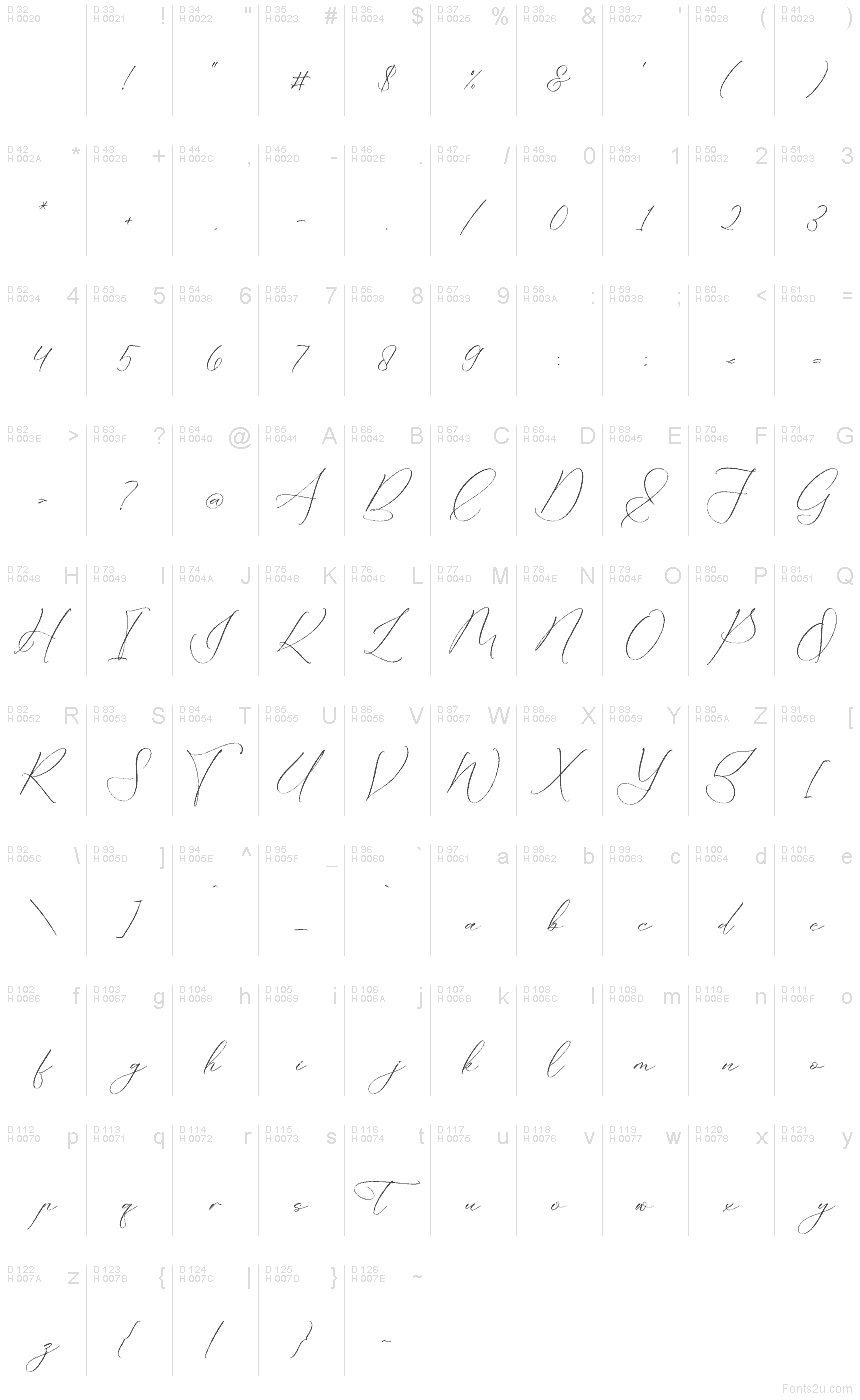
Portterda
Portterda font is a light handwritten typeface designed by Storytype Studio. The elegant free font flows gracefully across the page with ornate loops and curves blended beautifully together. An added touch of sophistication and luxury is inherent in the font’s fine lines and accents. Every word that Portterda writes looks courteous, gentle, and classic.
Write headlines for newspapers, magazines, or posters with Portterda font for perfect results. Compose body copy for editorial projects, write website text, decorate your eighties inspired movie posters or book covers. Typography-centric marketing items like t-shirts can also be designed using this wonderful tool as well!